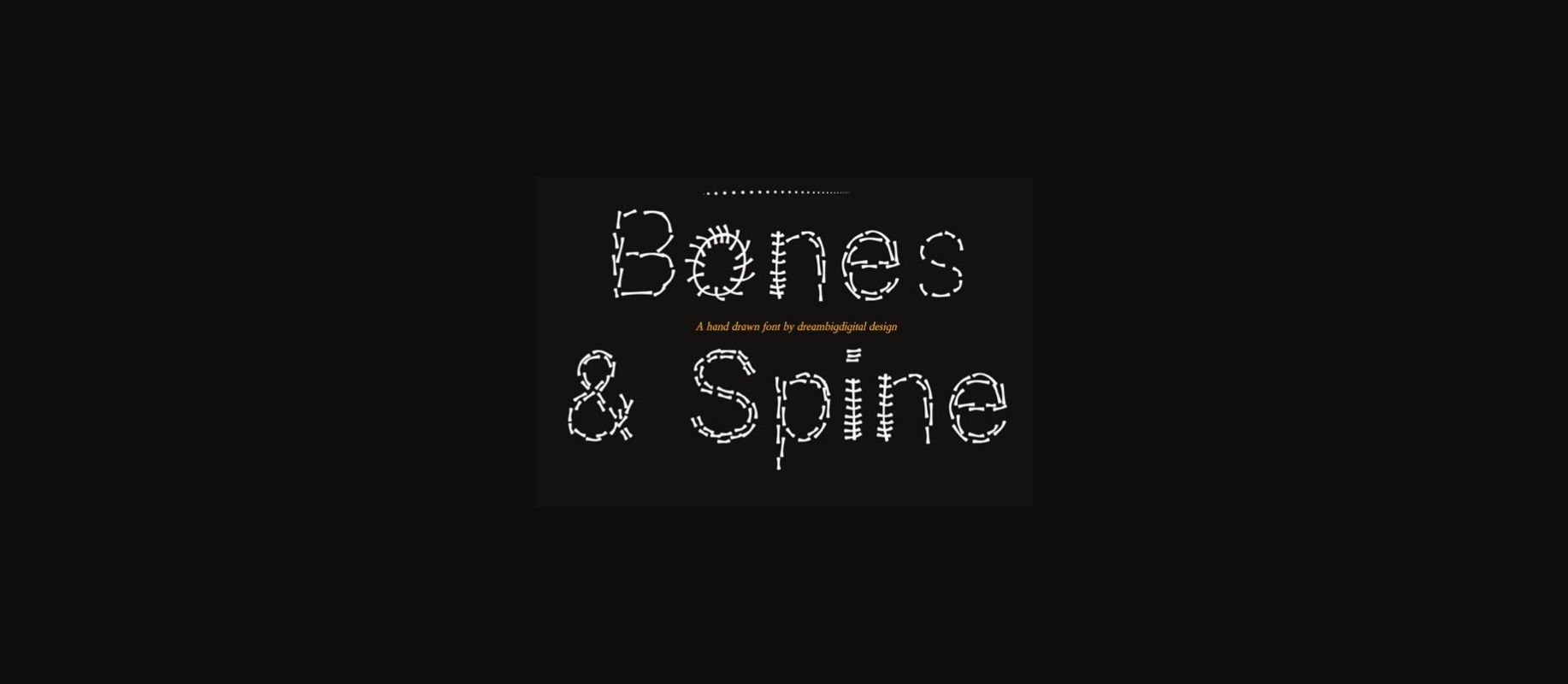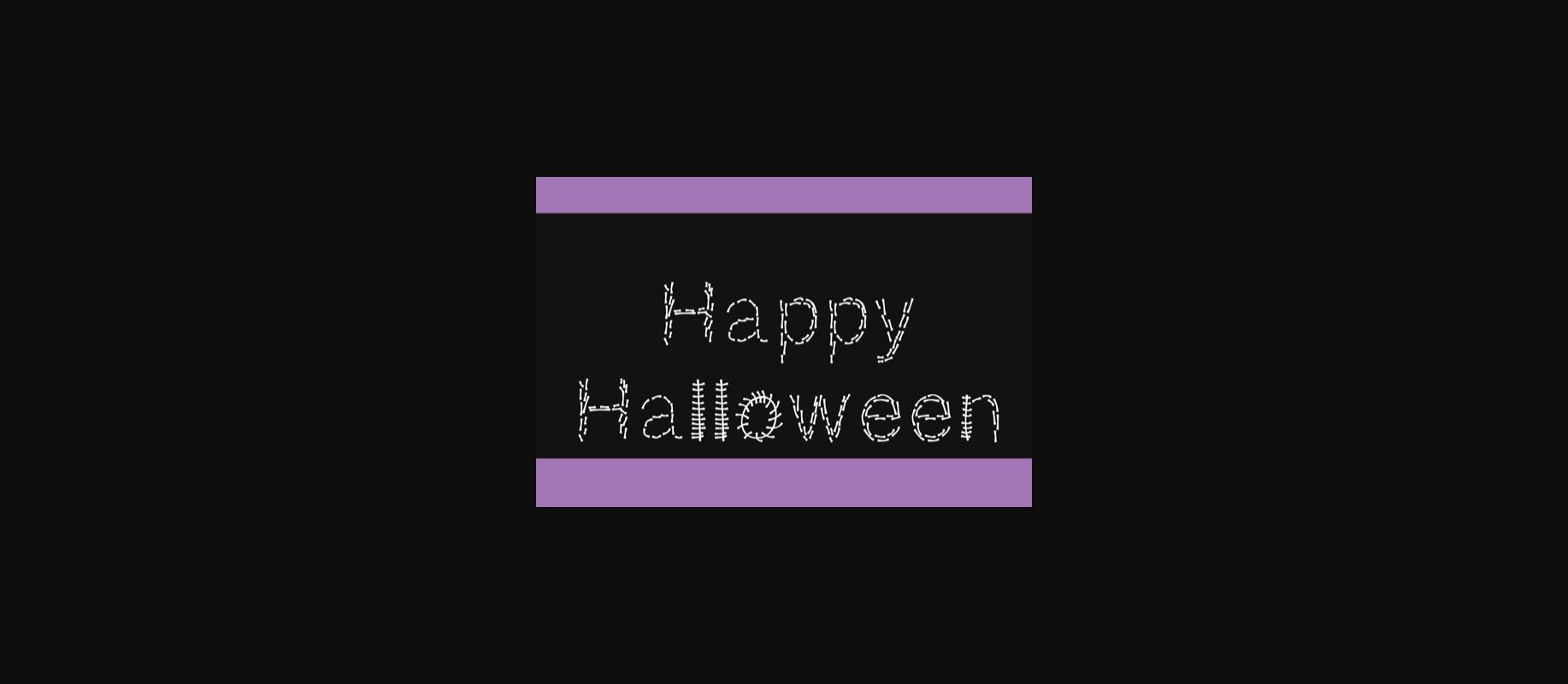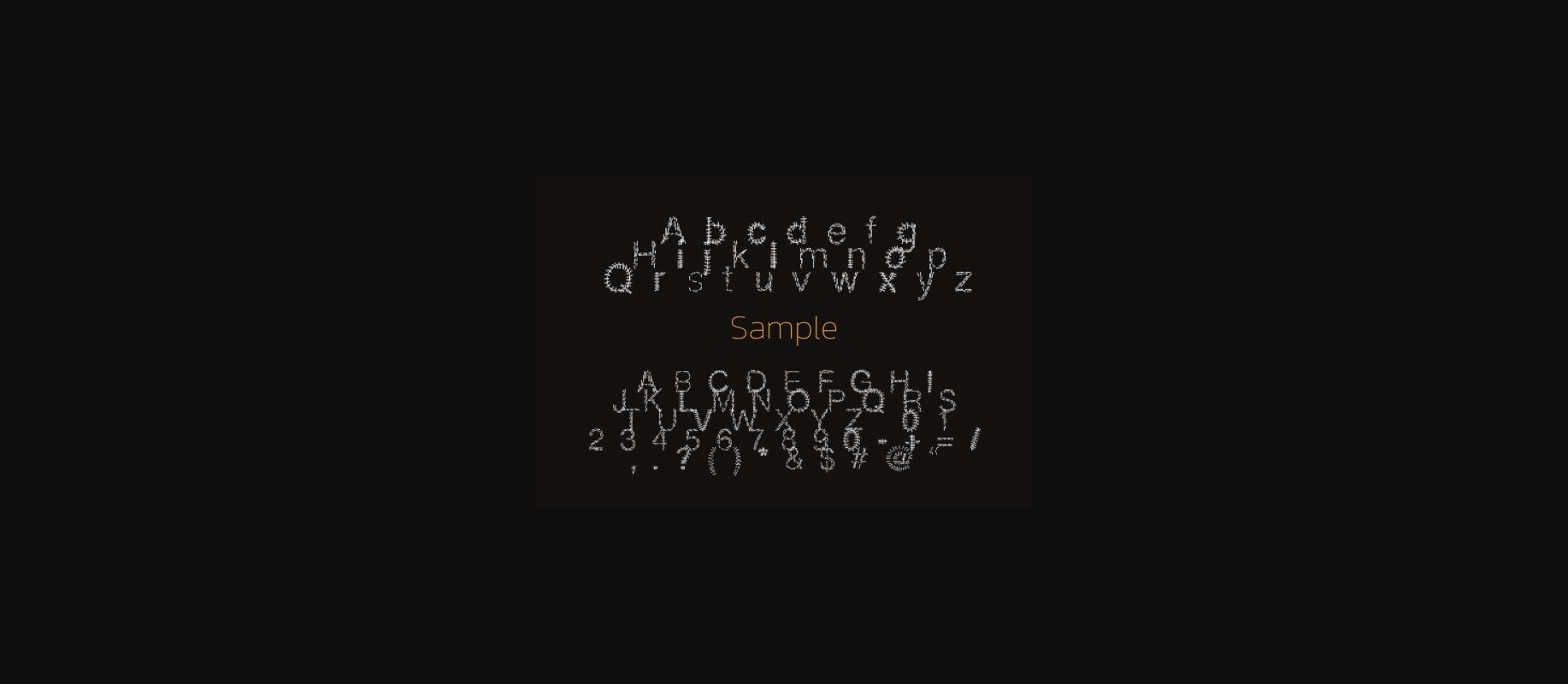
Bones and Spine Font
About Bones and Spine Font
Bones and Spine is a playful Halloween handwritten decorative font with lots of bones and spines. This font will bring lots of chill and spookiness during the Halloween season.